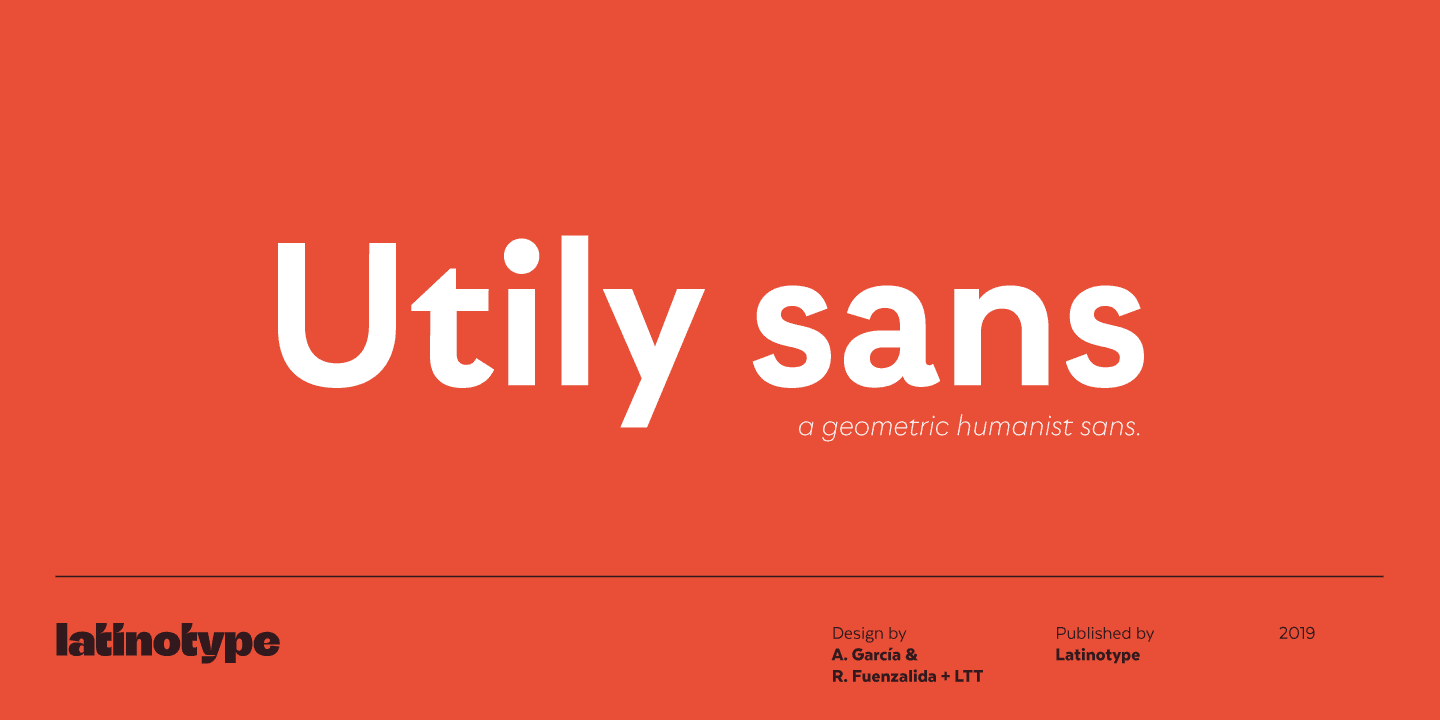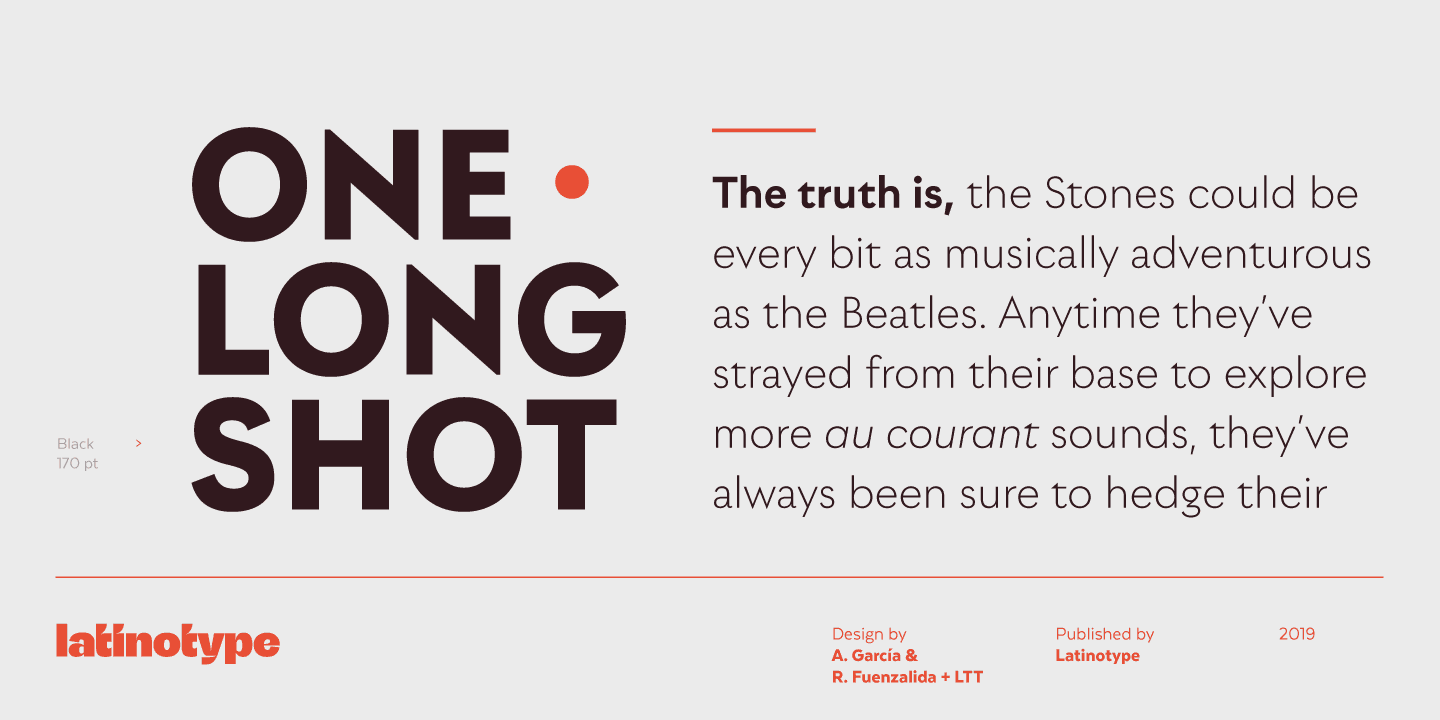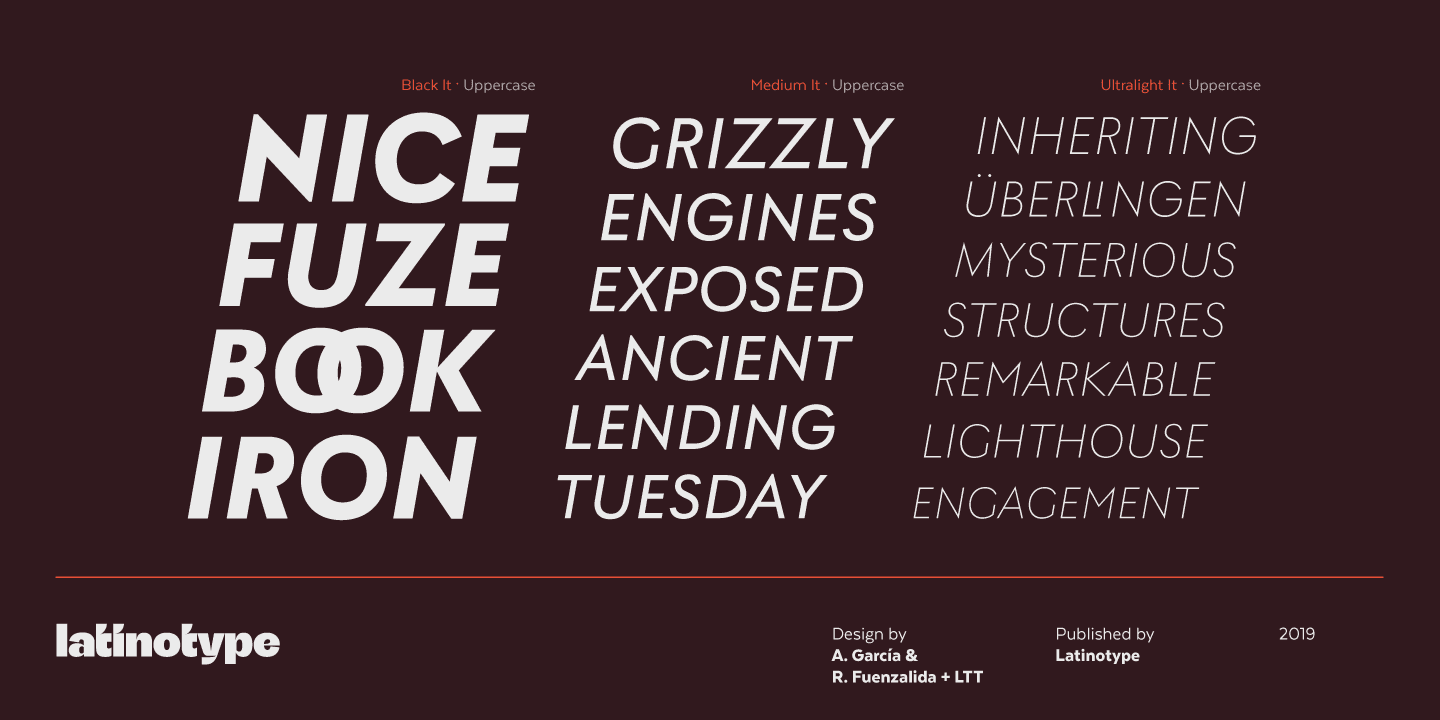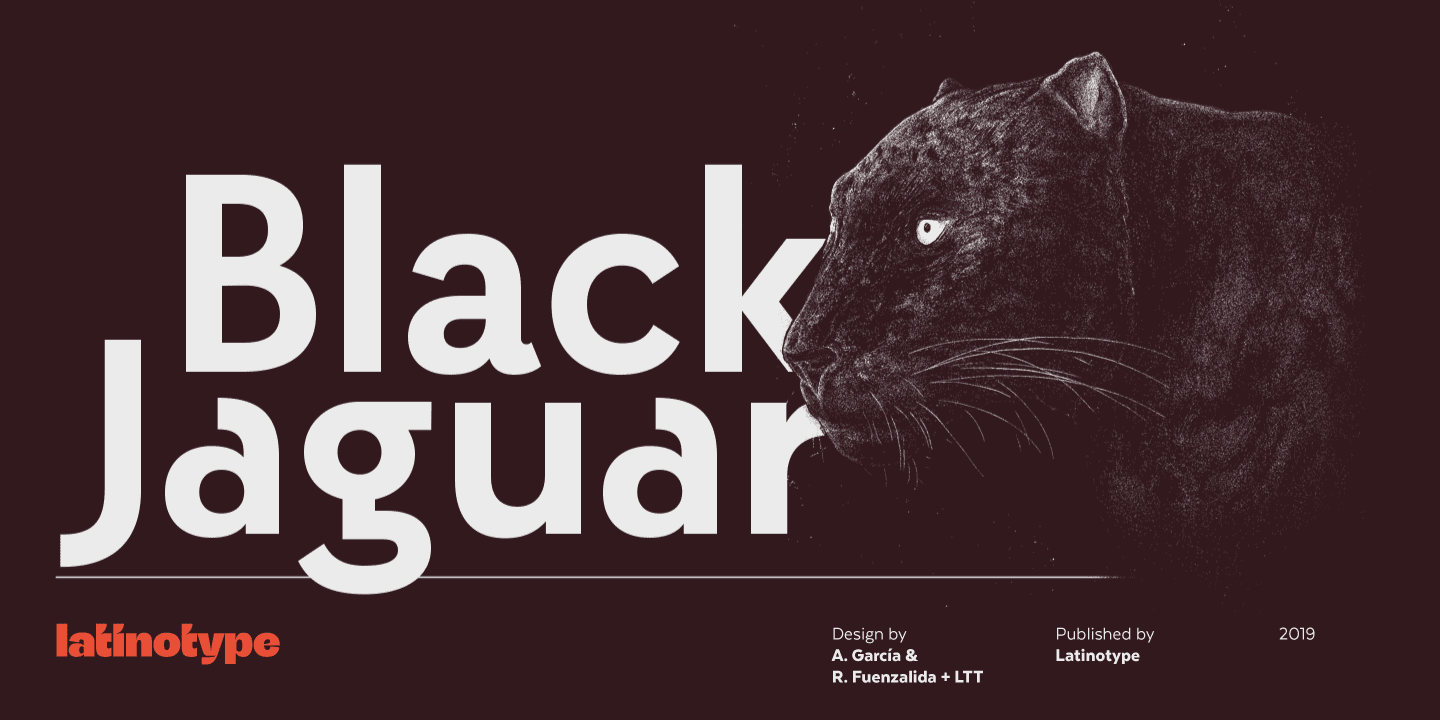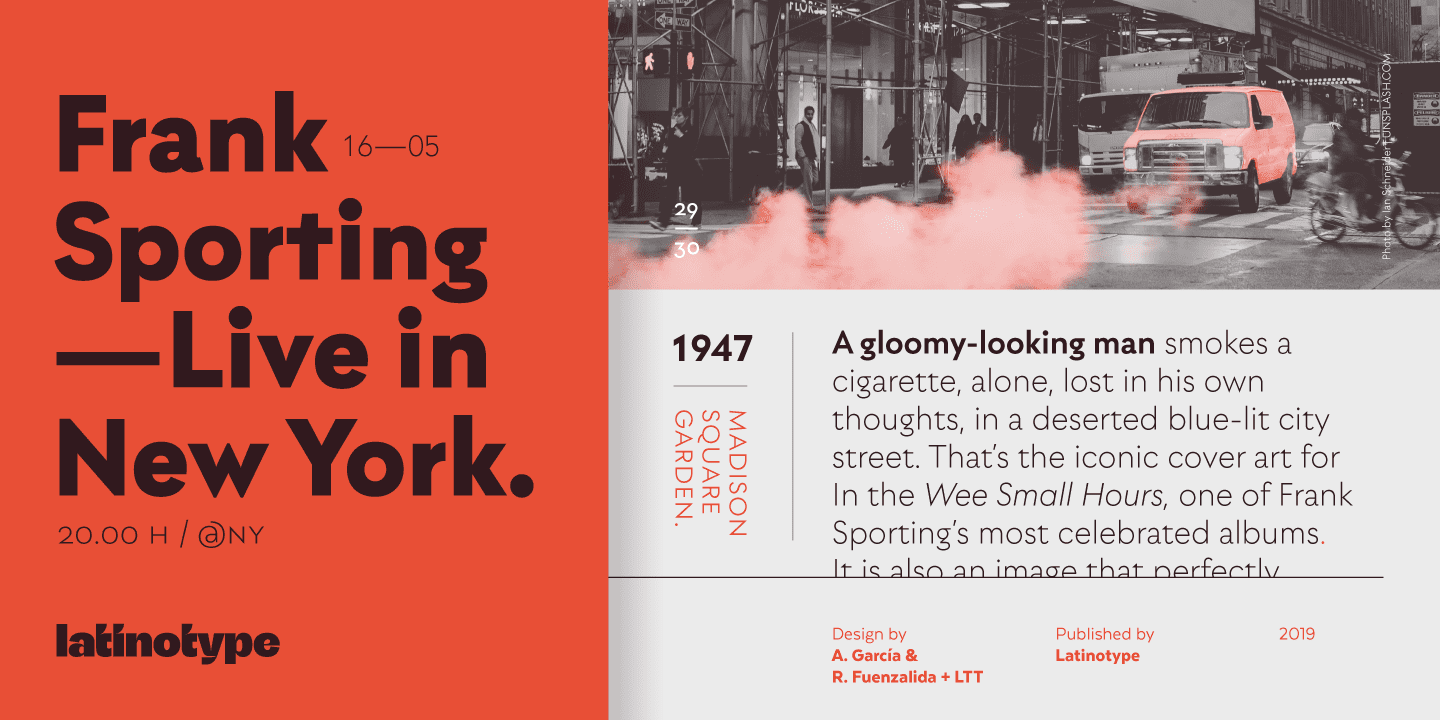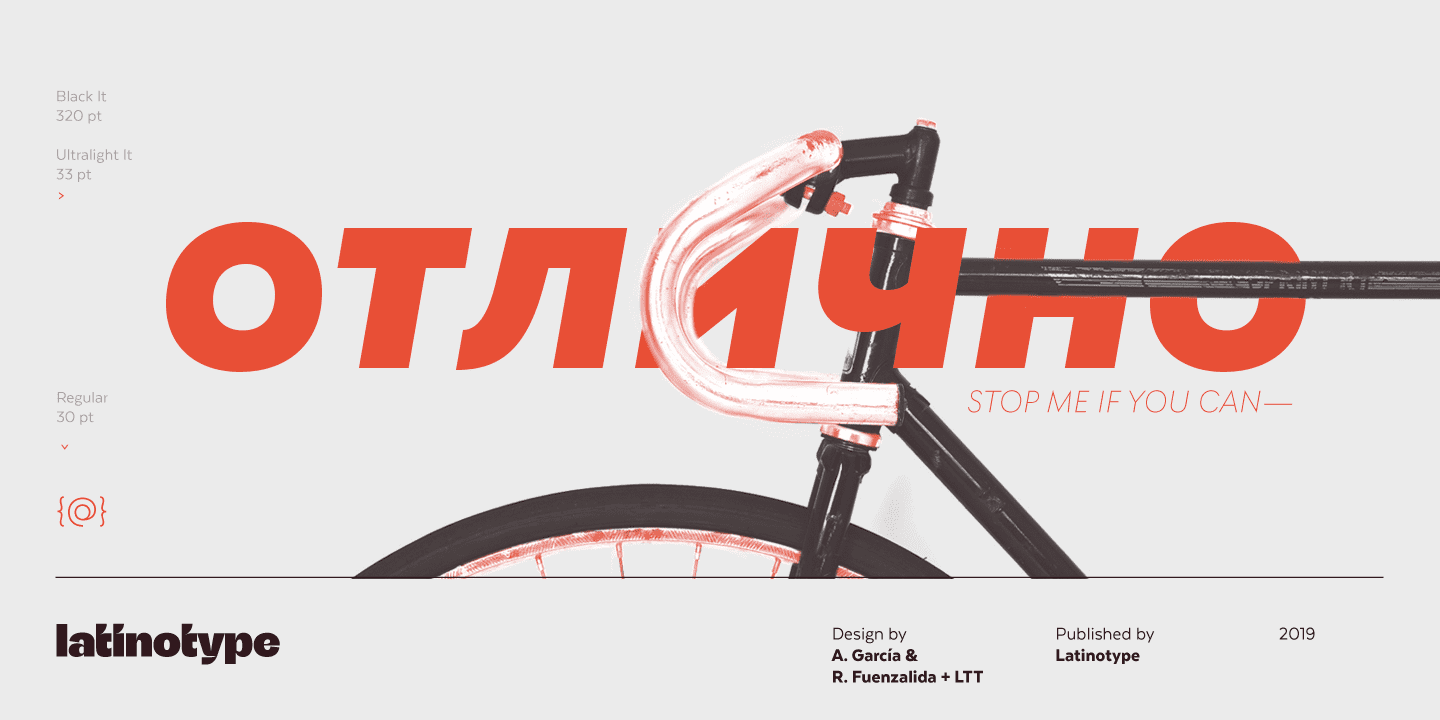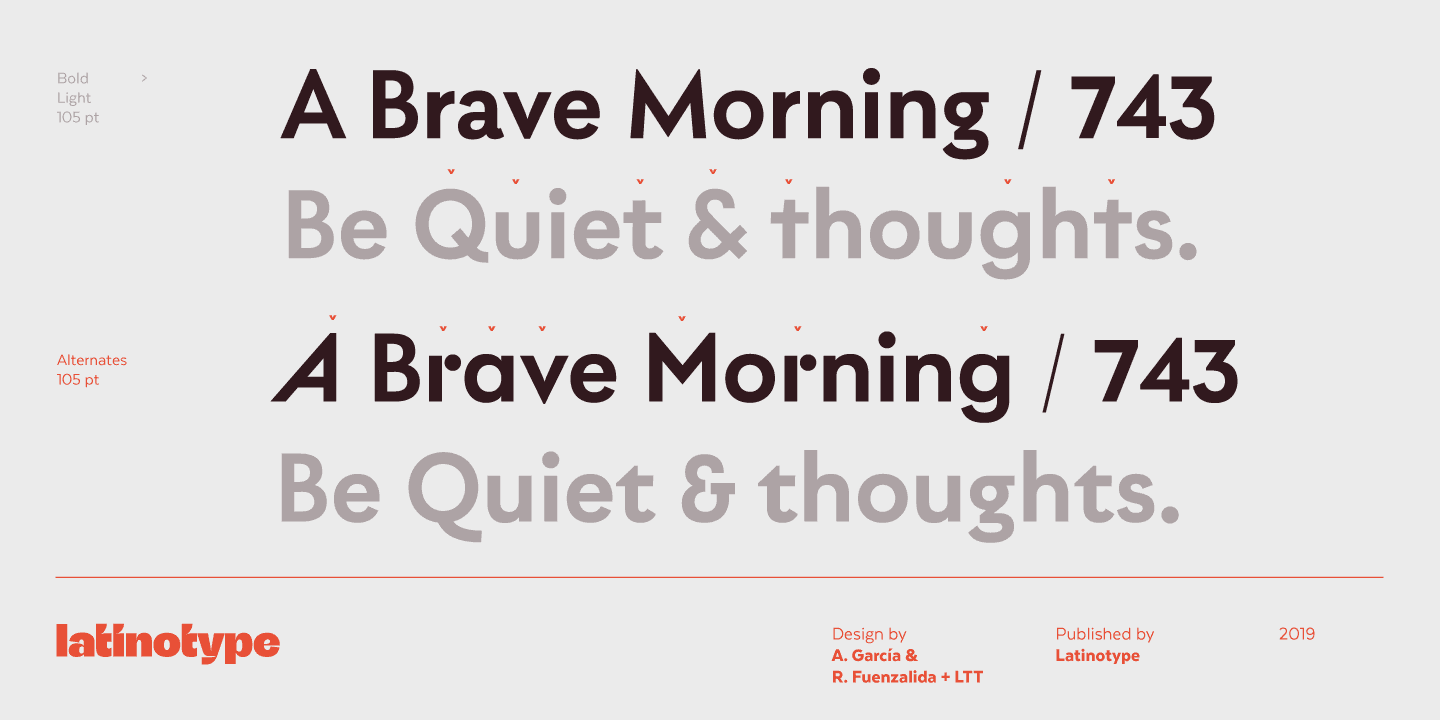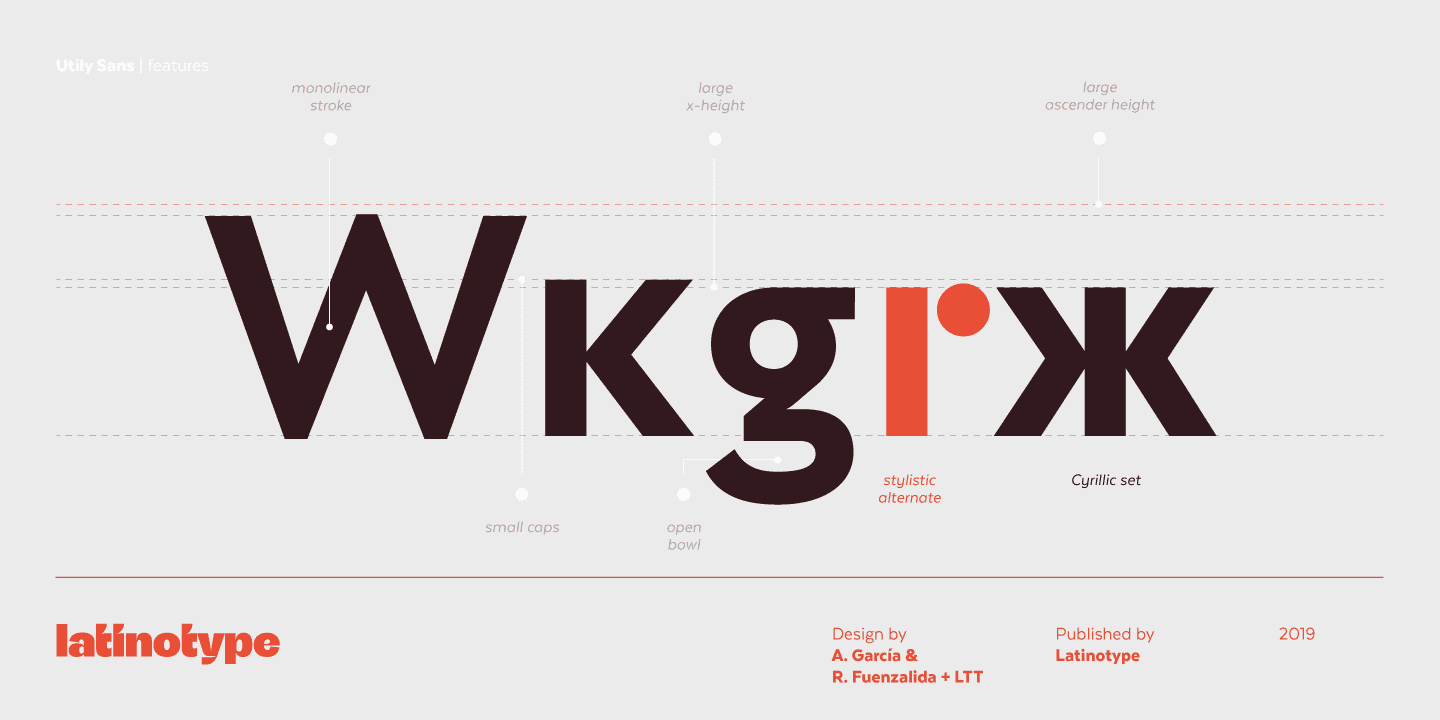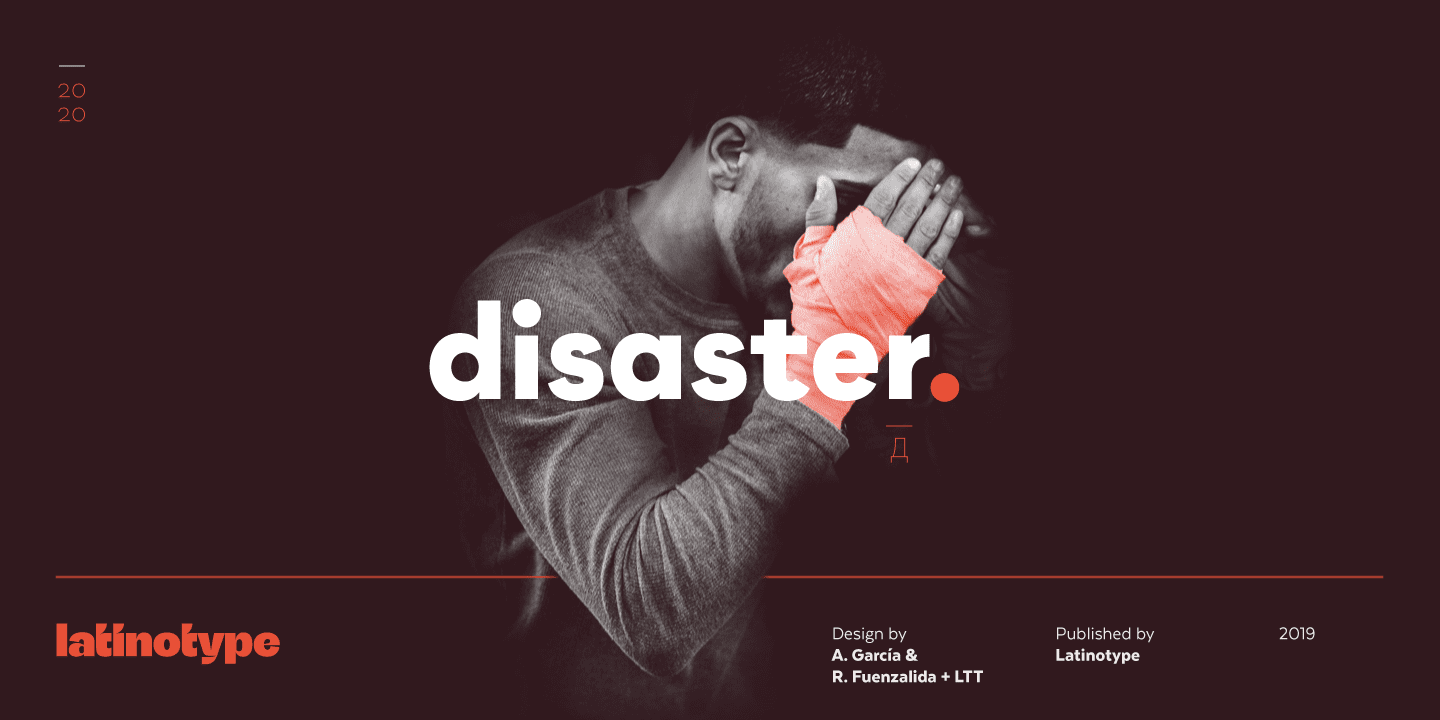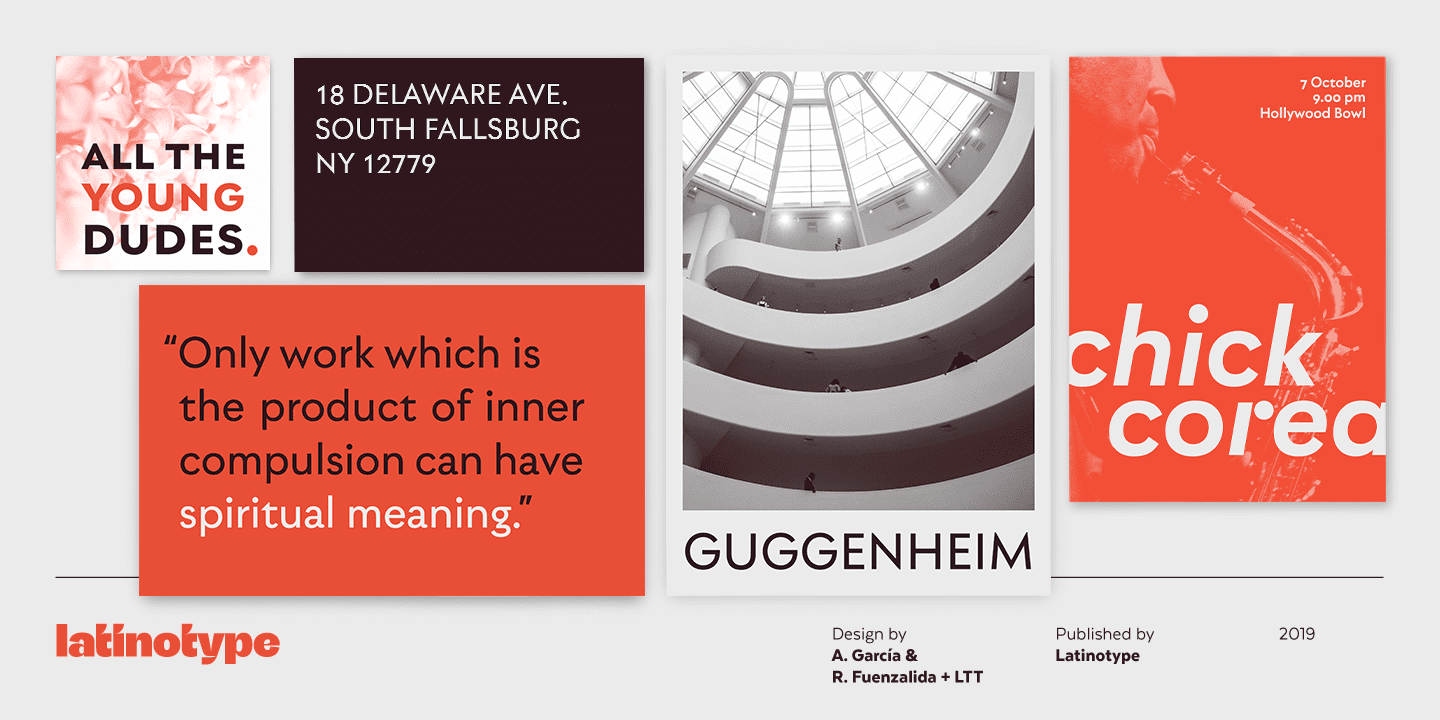
Utily Sans glyph proportions and shapes make it suitable for long-form text. This typeface shows geometric simplicity with humanist shapes. It looks like Futura, but has a feel closer to Garamond.
Utily Sans is composed of 6 weights with their matching italics, an alternate character set that brings it back to its geometric origin, uppercase discretionary ligatures for expressive titles, as well as small caps, lining figures and old style numbers. These features make the font well-suited for large and small sized compositions, for short or long text.
Utily Sans is the first Latinotype font with Cyrillic support, additional to the usual support for over 200 Latin-based languages.